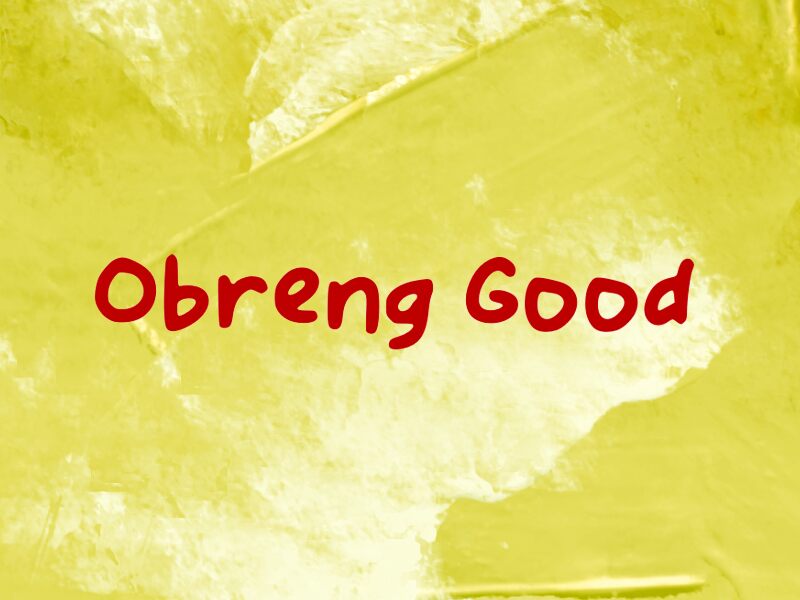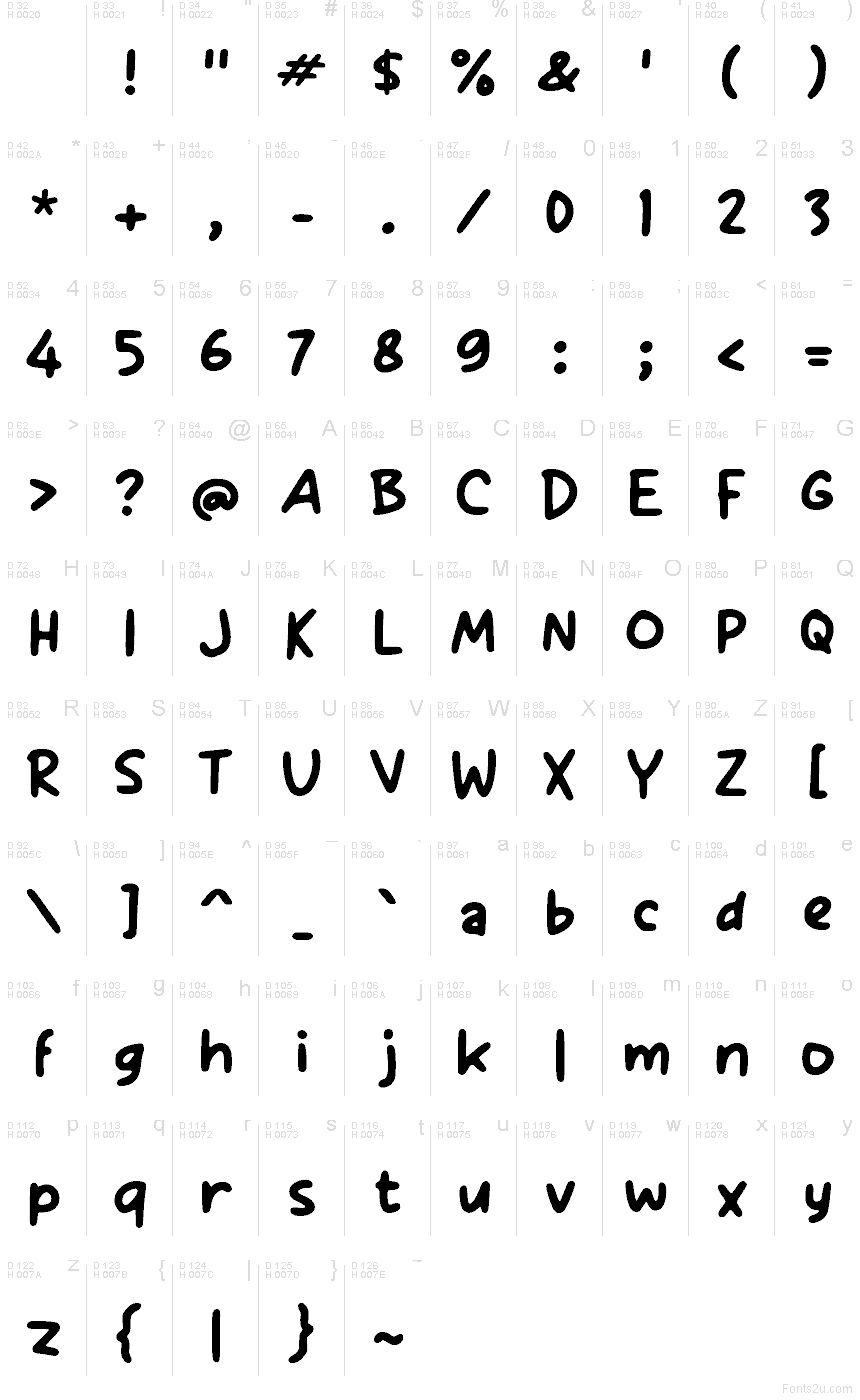
Obreng Good
Obreng Good font by wep is a free handwritten typeface with a bold, inky bounce that feels like it was drawn with a chunky marker. Each letter is rounded and slightly uneven in the best way, giving words a friendly, energetic sway that’s easy to read even at smaller sizes. The thick strokes and soft curves make text feel warm, approachable, and a little bit mischievous.
Using Obreng Good, this free font shines on kids’ book covers, classroom posters, birthday invitations, YouTube thumbnails, stickers, and playful branding or packaging. Its chunky shapes hold up beautifully on screens and print, keeping headlines loud and cheerful. Try pairing Obreng Good with a clean geometric sans for body text, and let this handwritten star handle the bold titles and callouts.